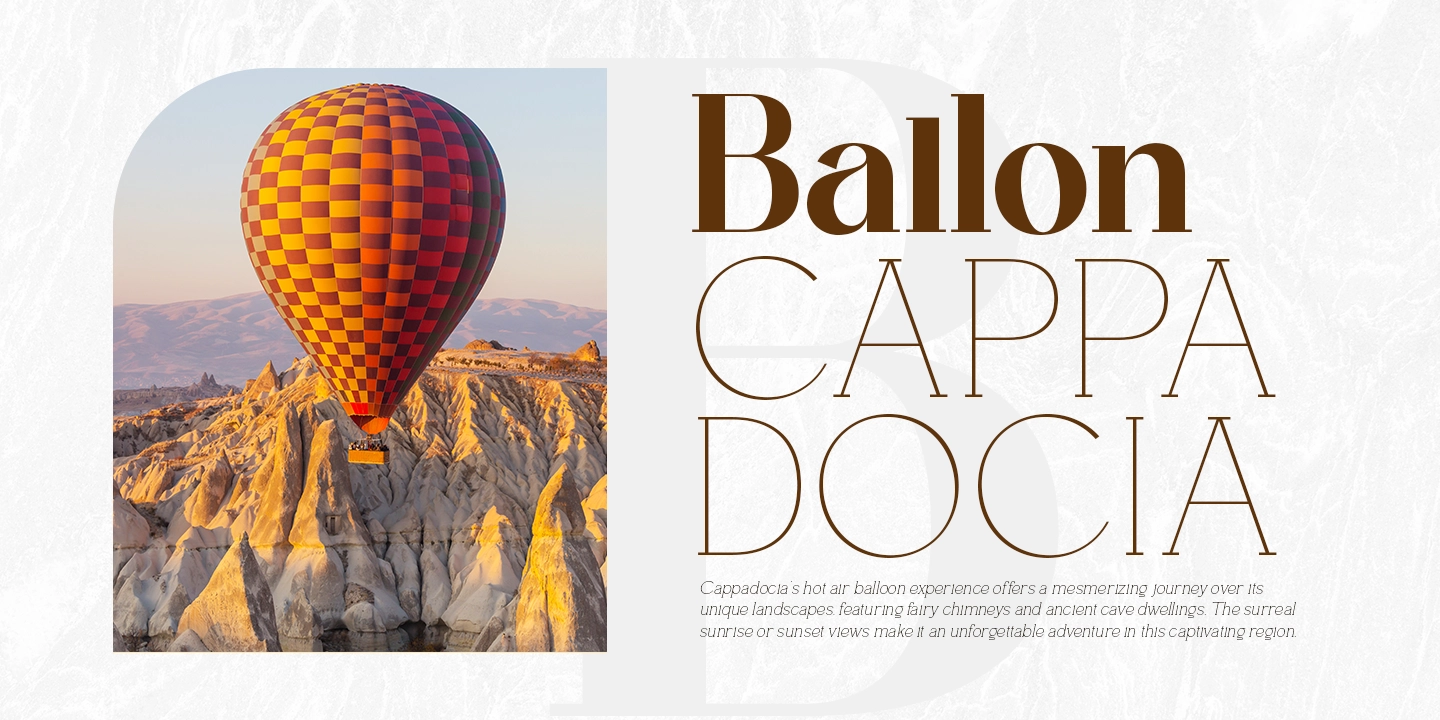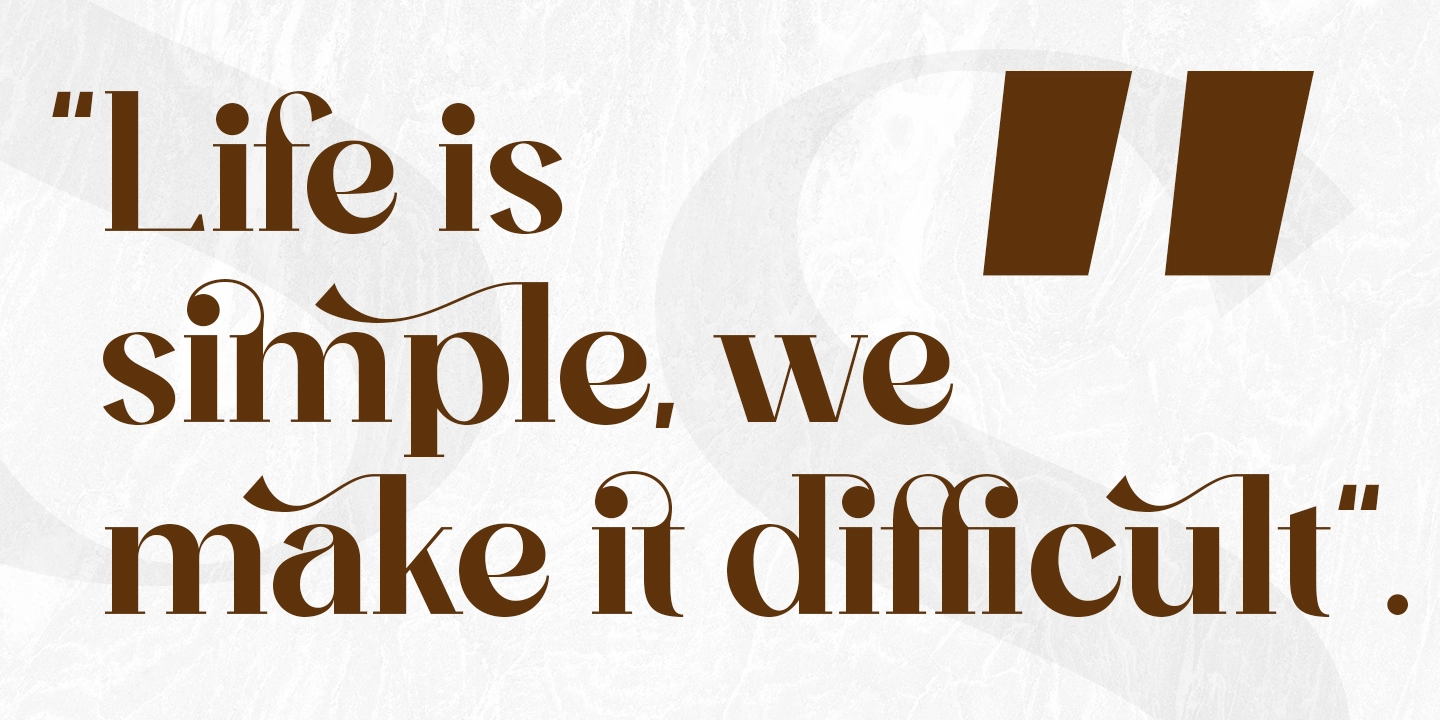
Ozilic
Ozilic is a meticulously crafted serif font designed to meet diverse creative needs. Inspired by contemporary font styles, it features comprehensive OpenType functionalities, offering ultimate flexibility for your design projects. Whether you’re working on posters, movie titles, books, branding media, or large-scale projects, Ozilic adapts effortlessly to any design style.
What sets Ozilic apart is its elegant design combined with extensive multilingual support, making it ideal for use across various countries and global markets. Elevate your designs with the professional and modern touch of Ozilic!